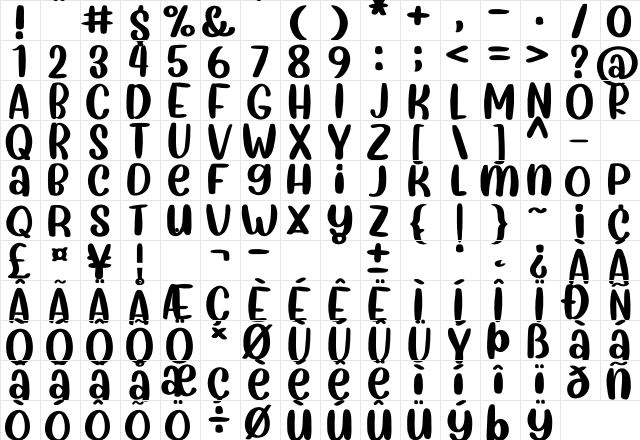
Sweet Winter Regular
| Designer | Donis Miftahudin |
Design Context for Sweet Winter Regular Typeface
Sweet Winter Regular is a composed and adaptable typeface that performs quietly and consistently across a wide range of design contexts.